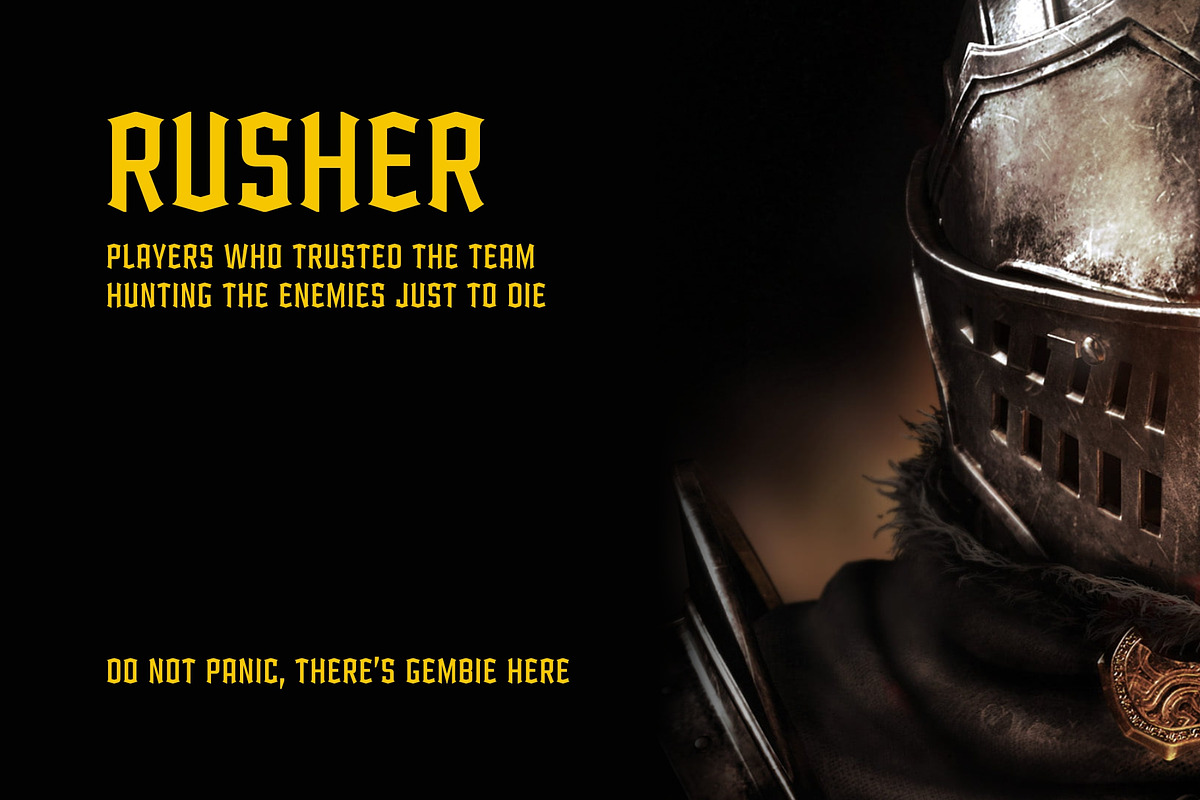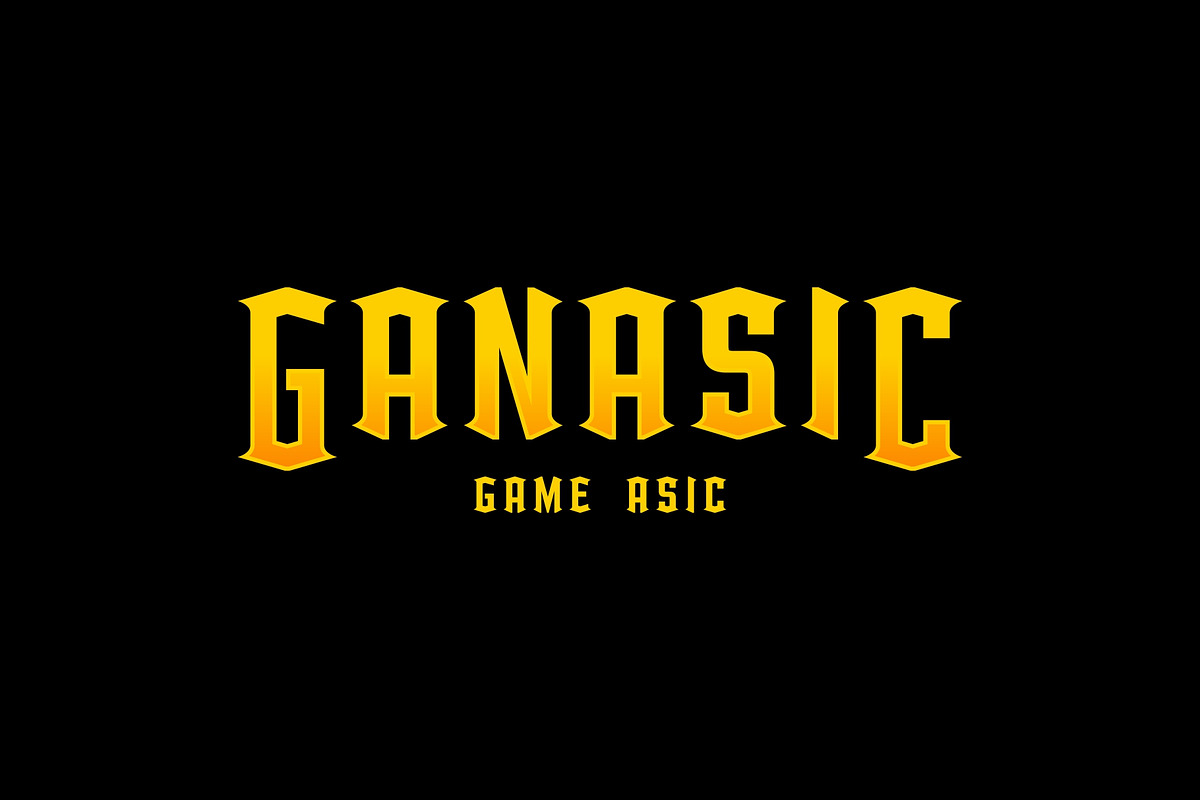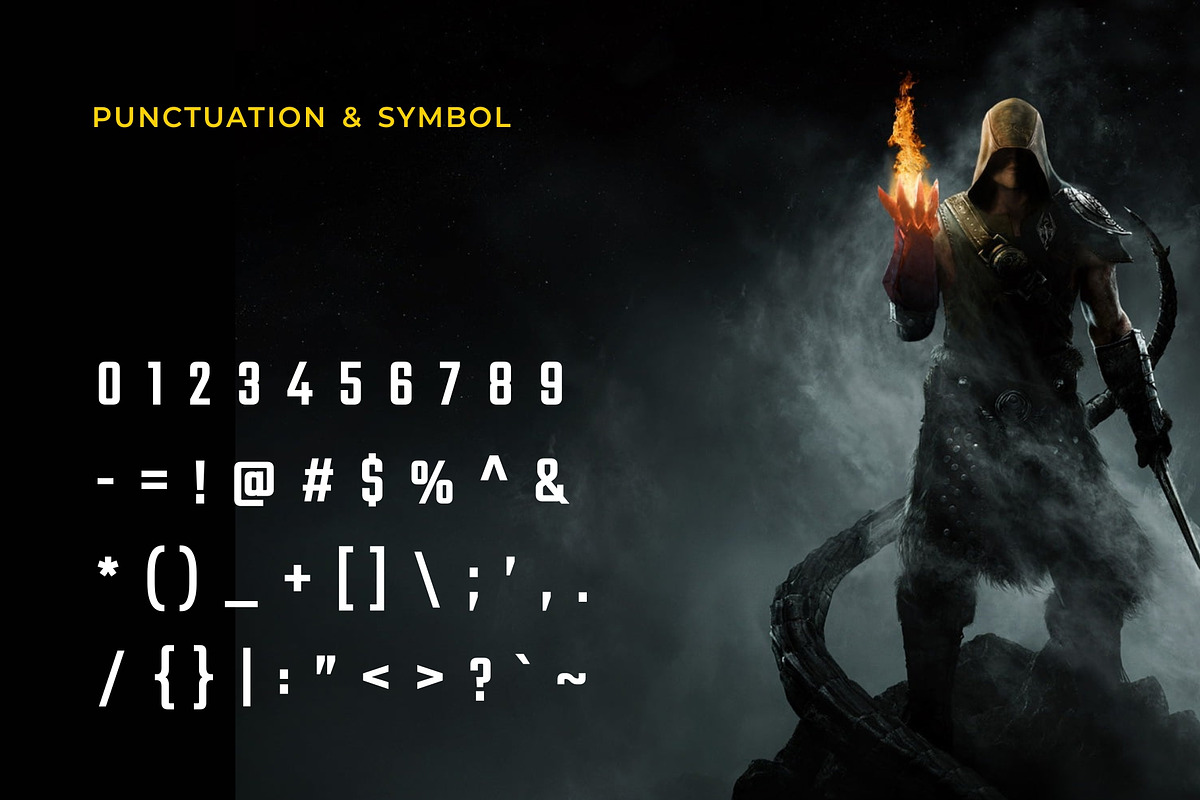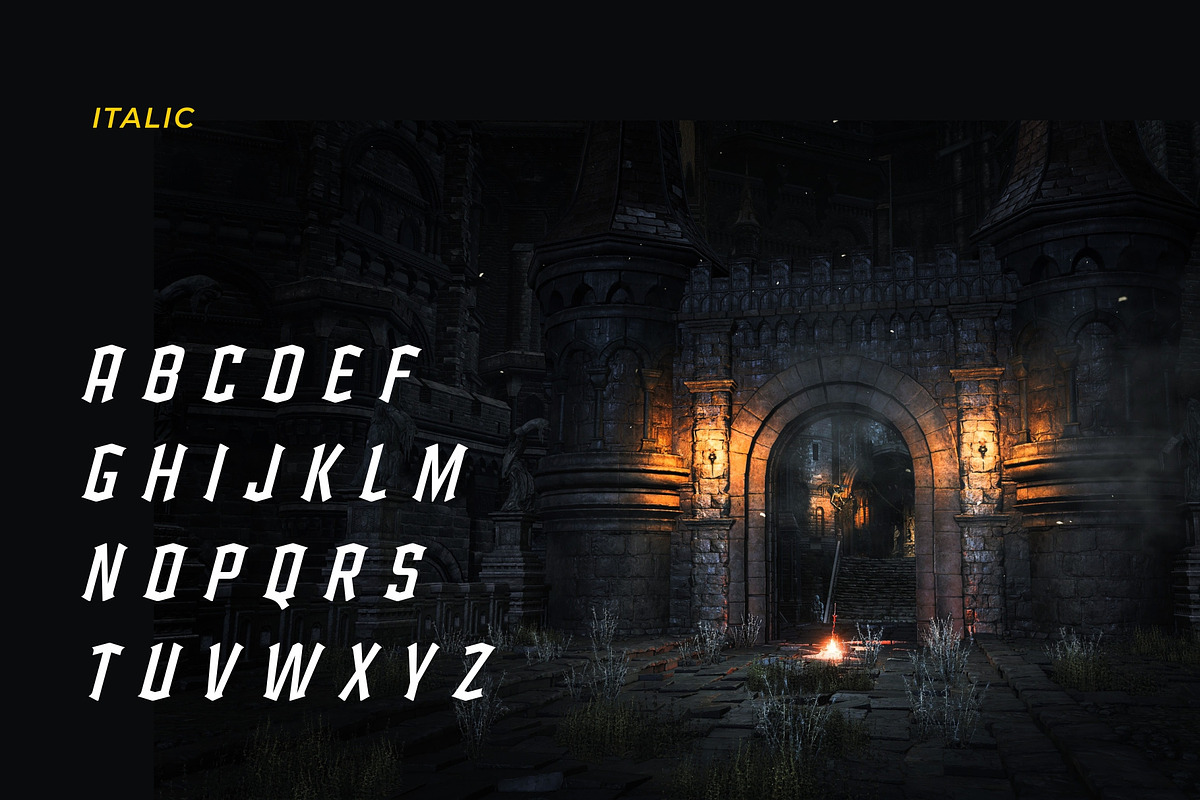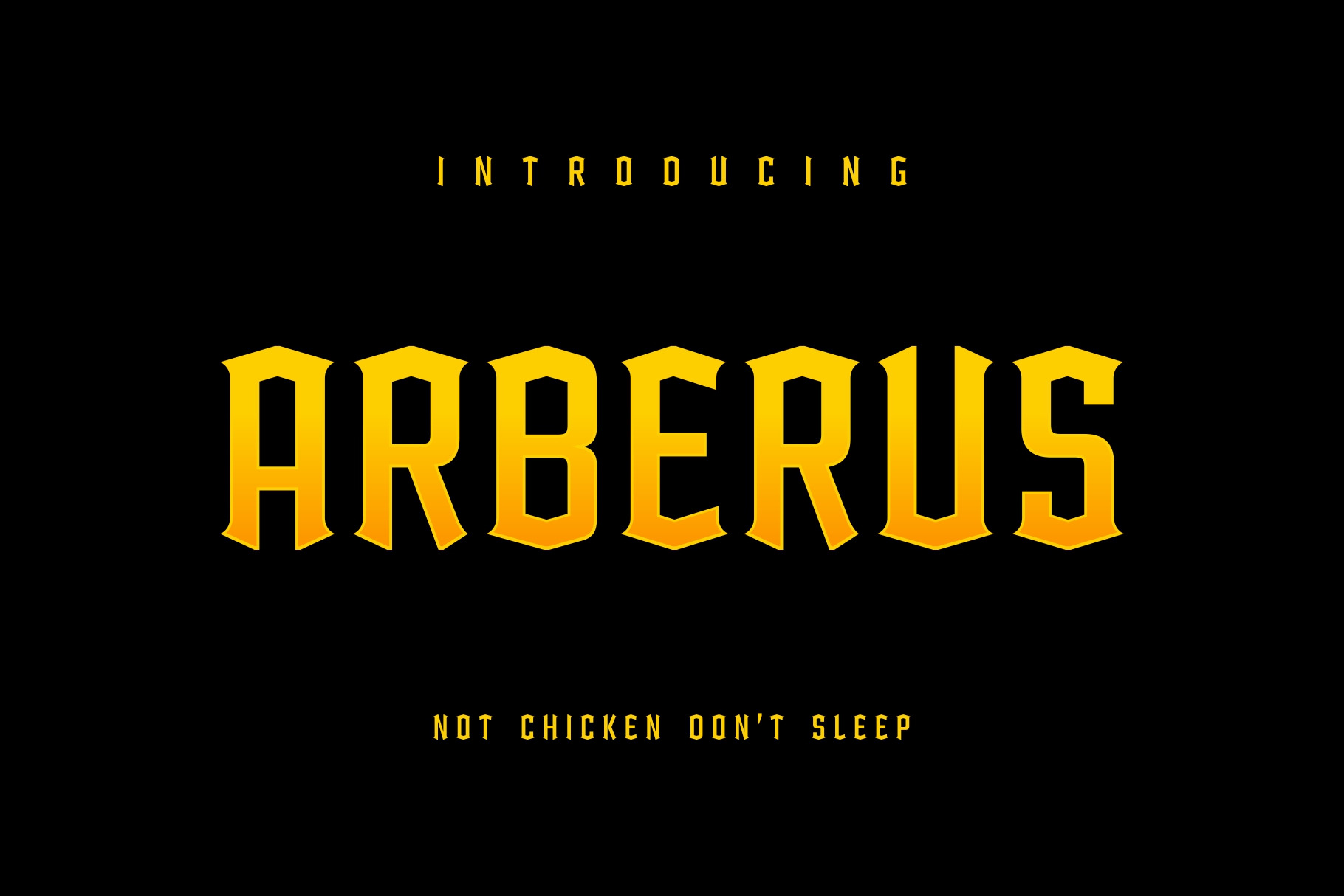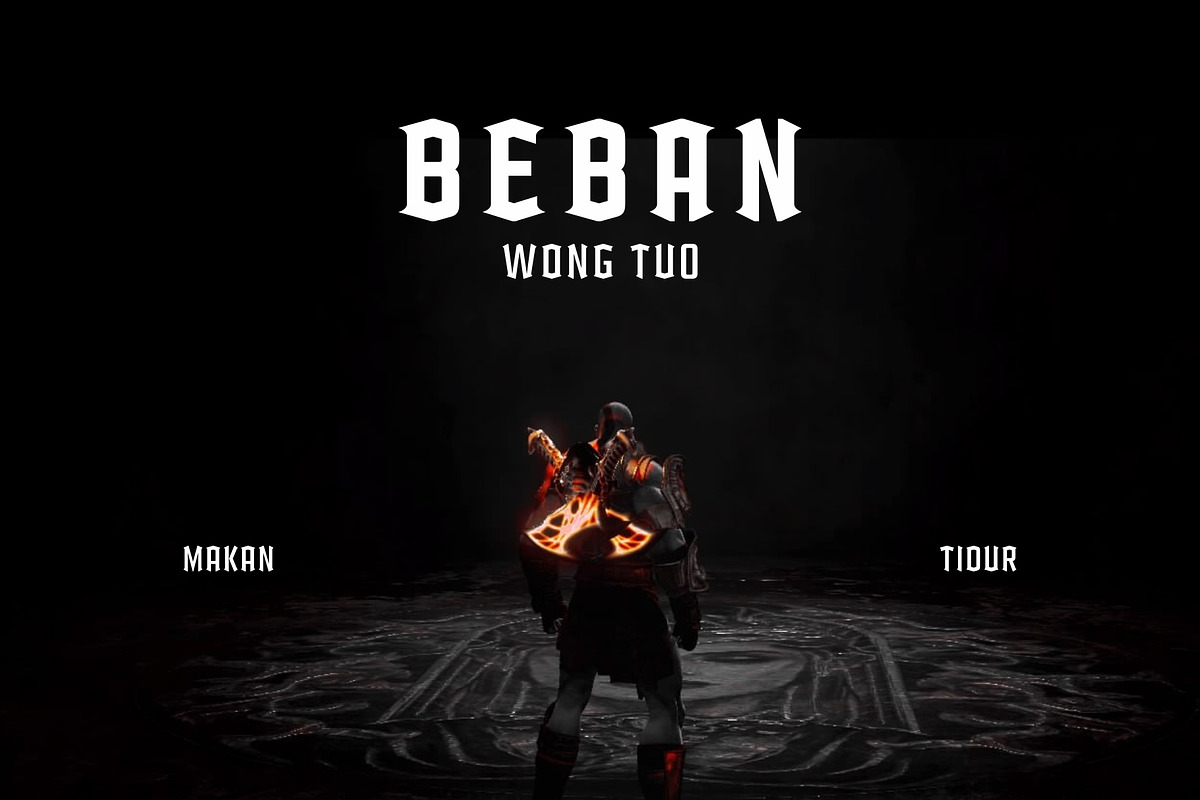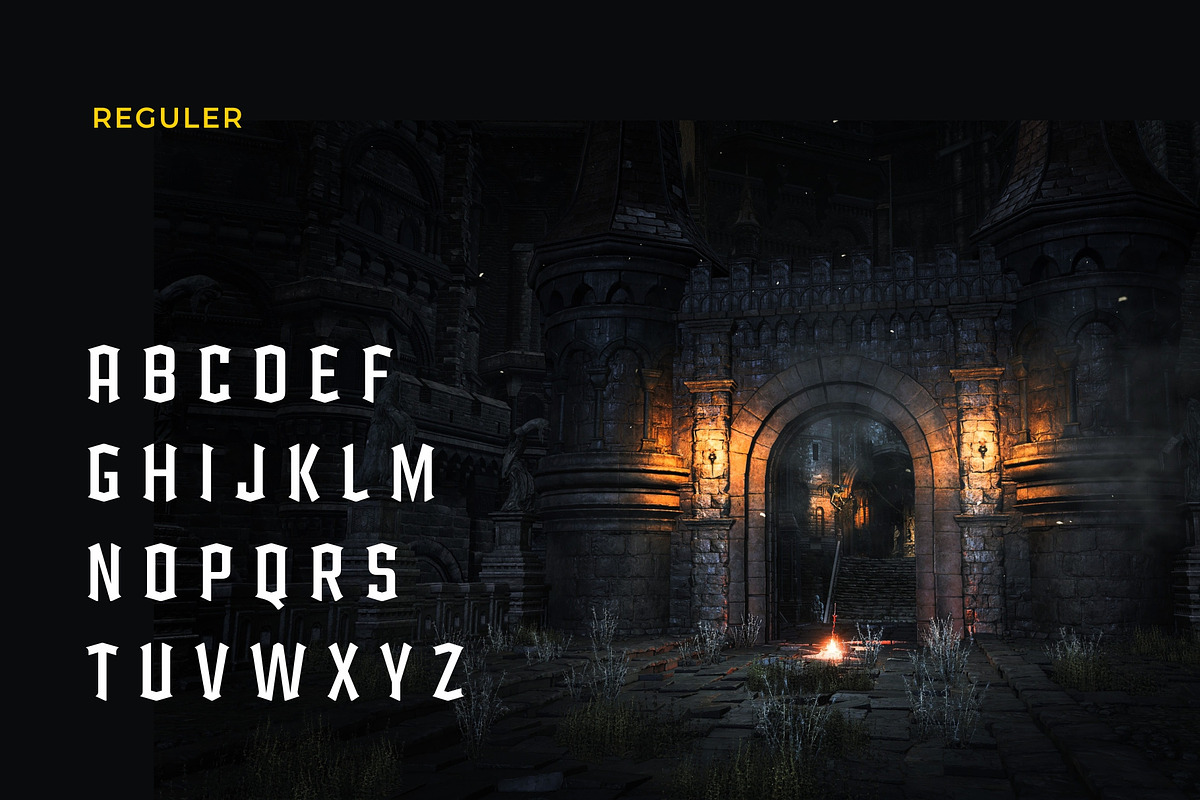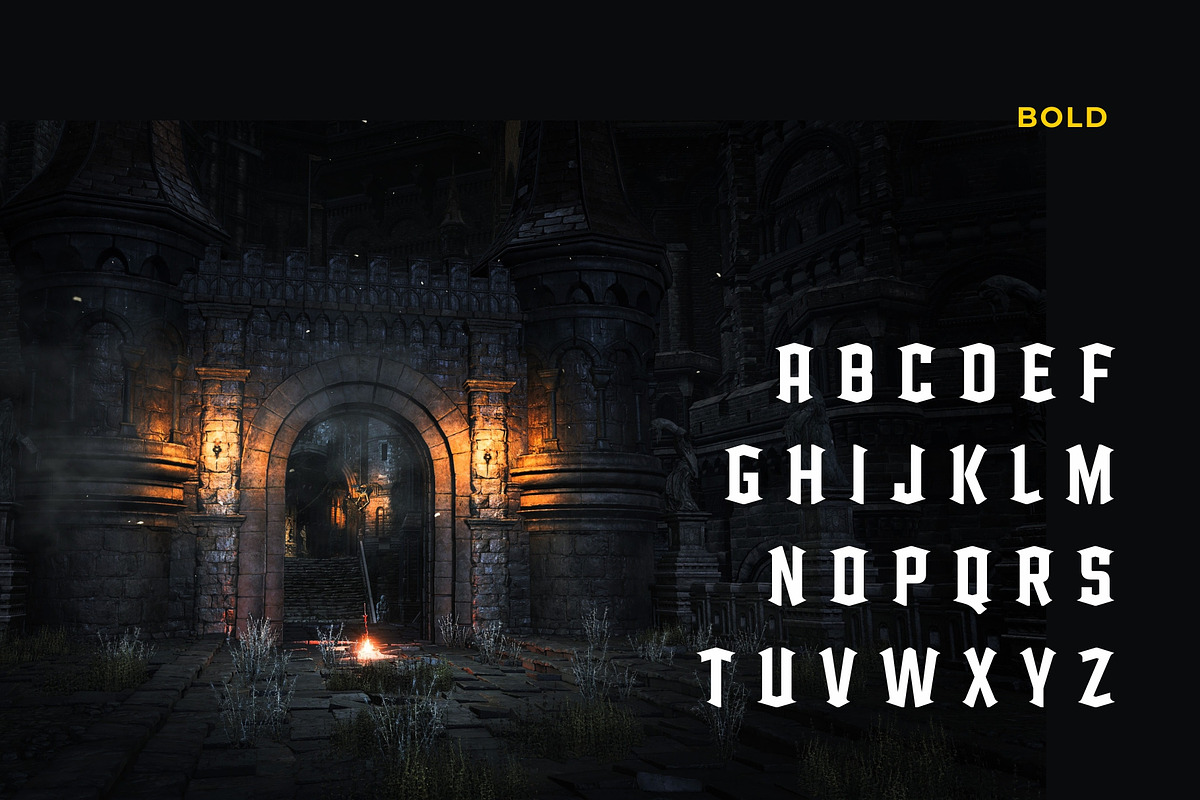
Arberus Font
ARBERUS FONT
ARBERUS Its unique and strong style makes it stand out from other fonts, making it perfect for anyone who wants to make a statement.,The font is suitable to use for many occasion such as game, fashion, science music, movie title, brand, technology, space and many more.
- 3 Style : Reguler, Bold & Itallic
- Basic Latin A-Z
- Punctuation & Symbol